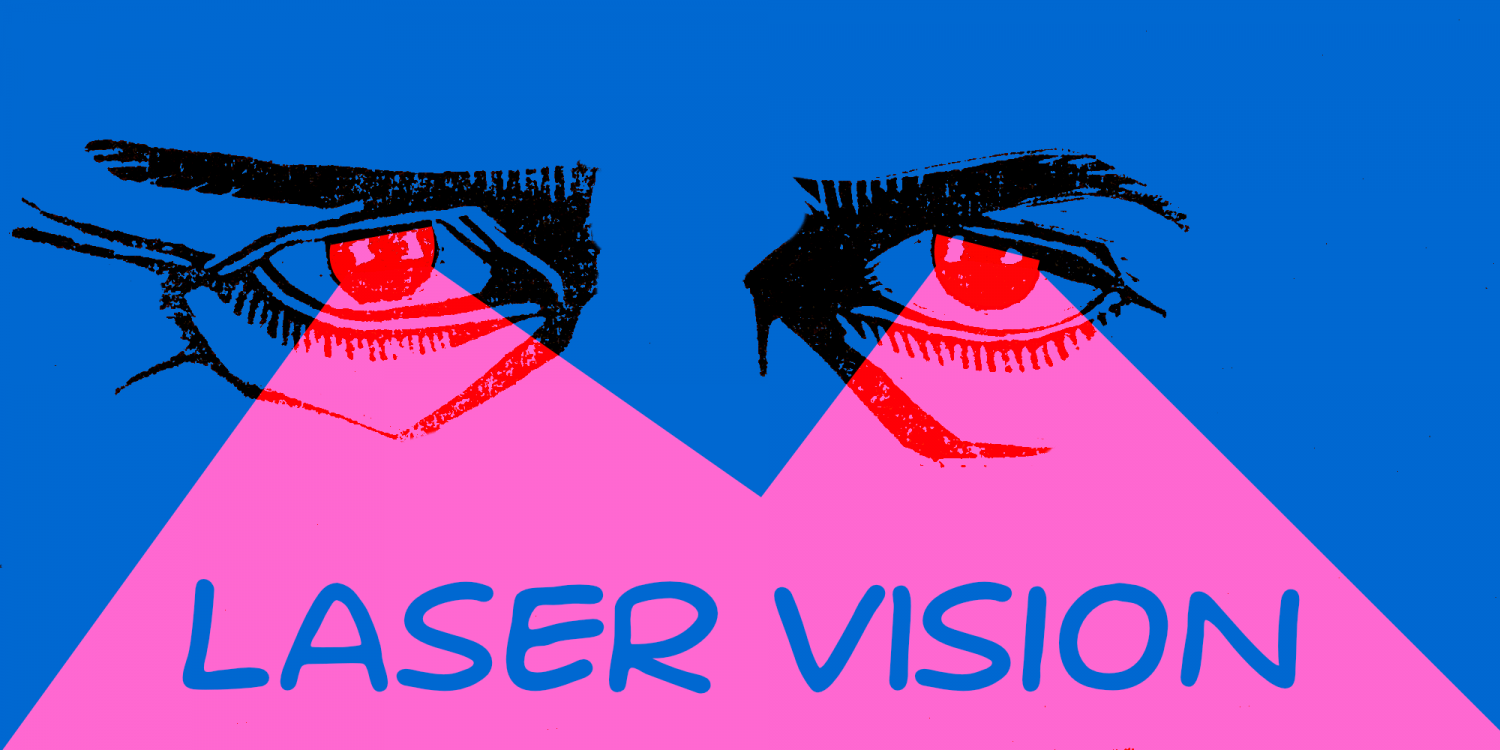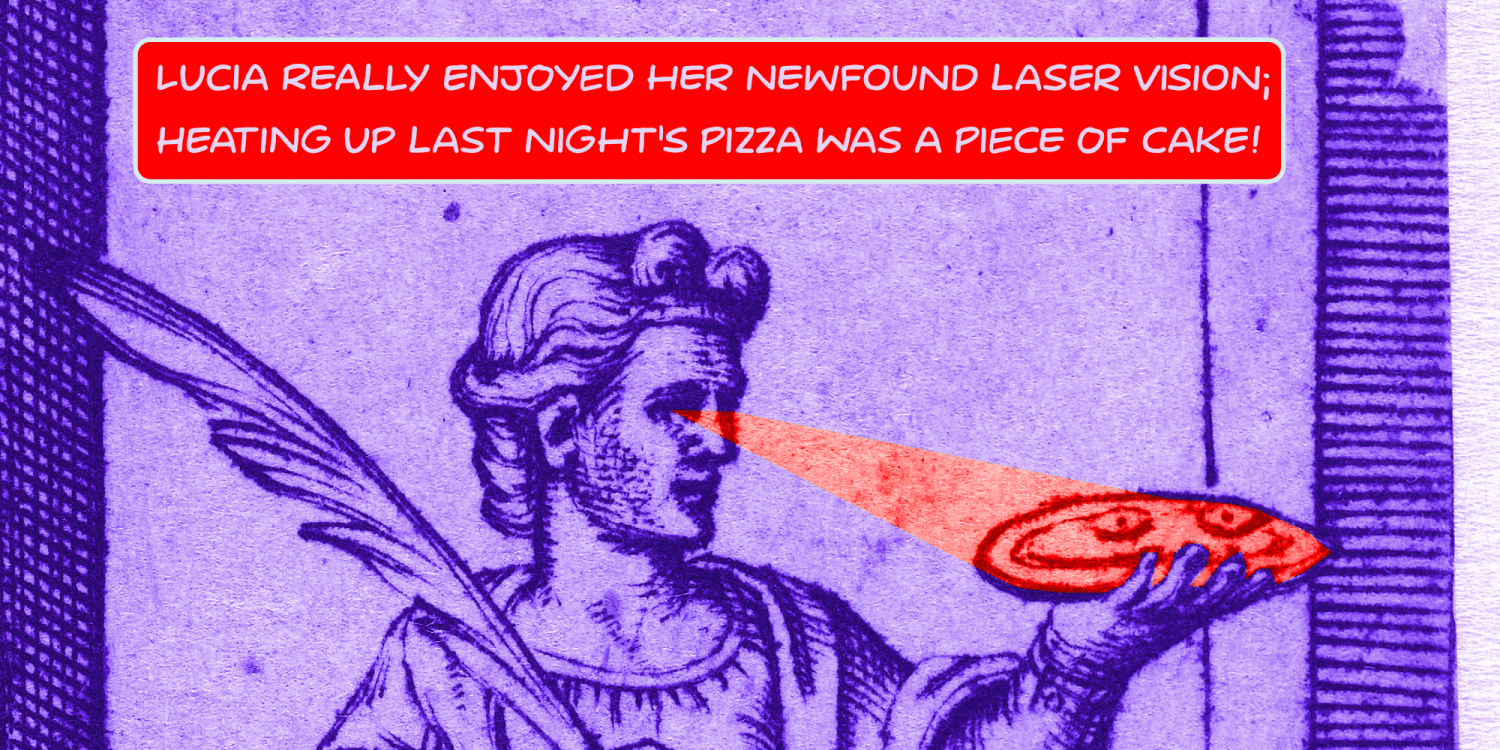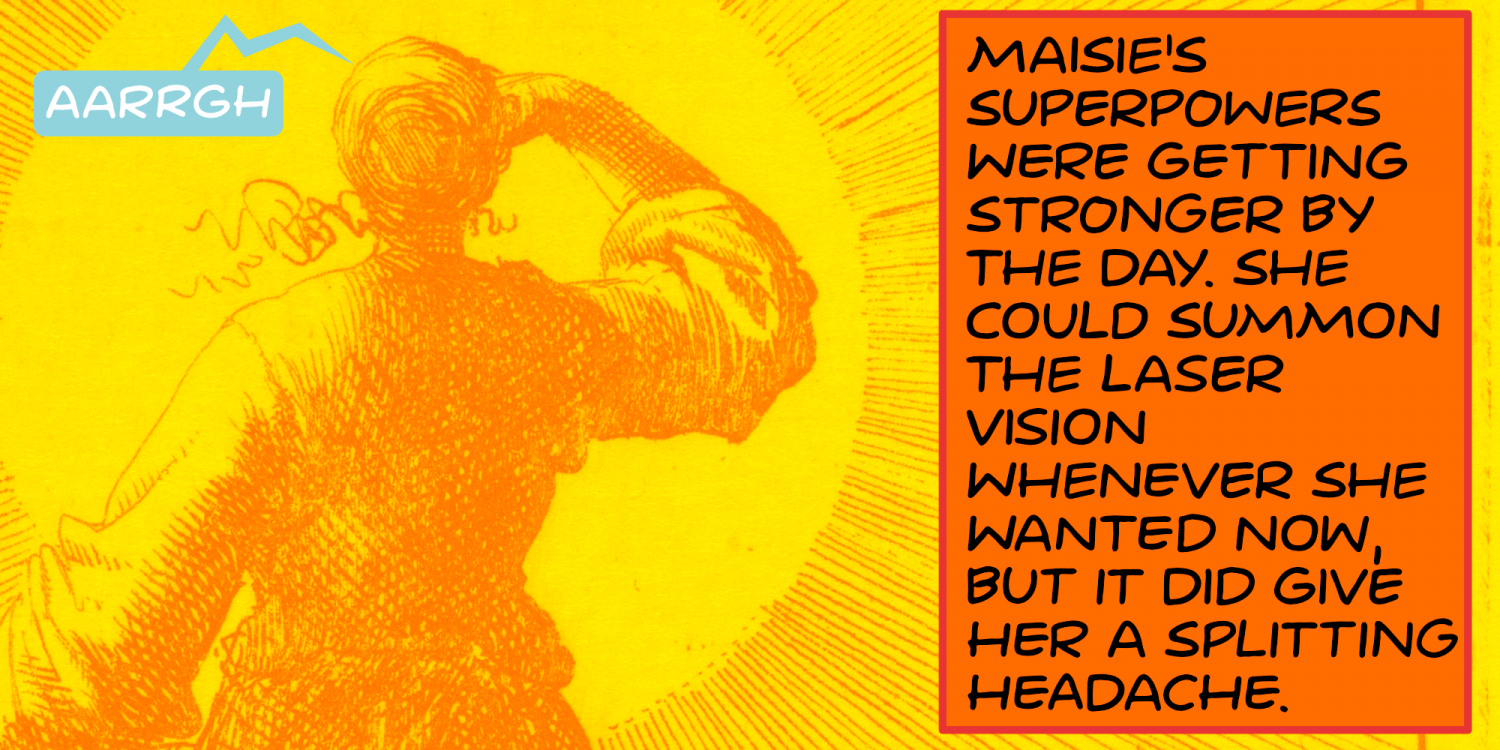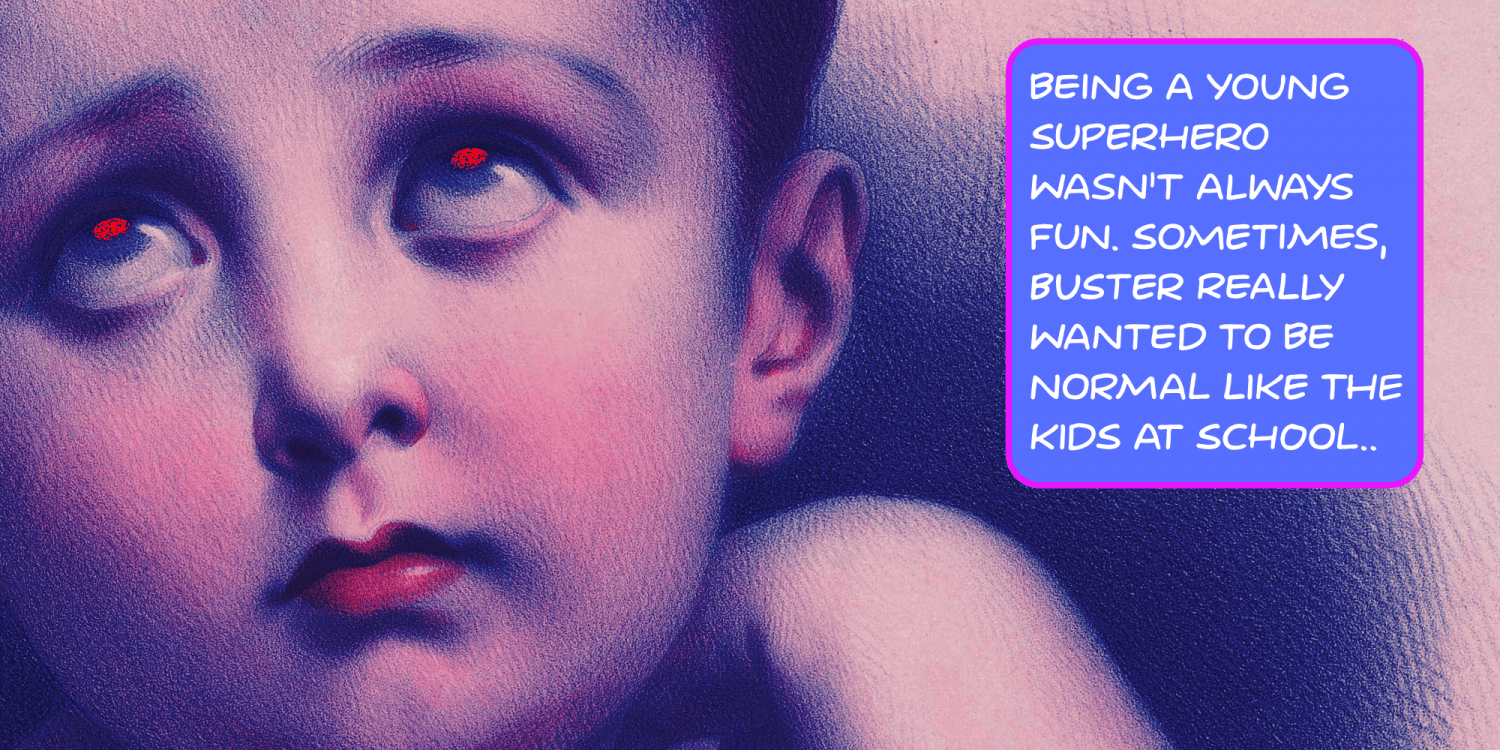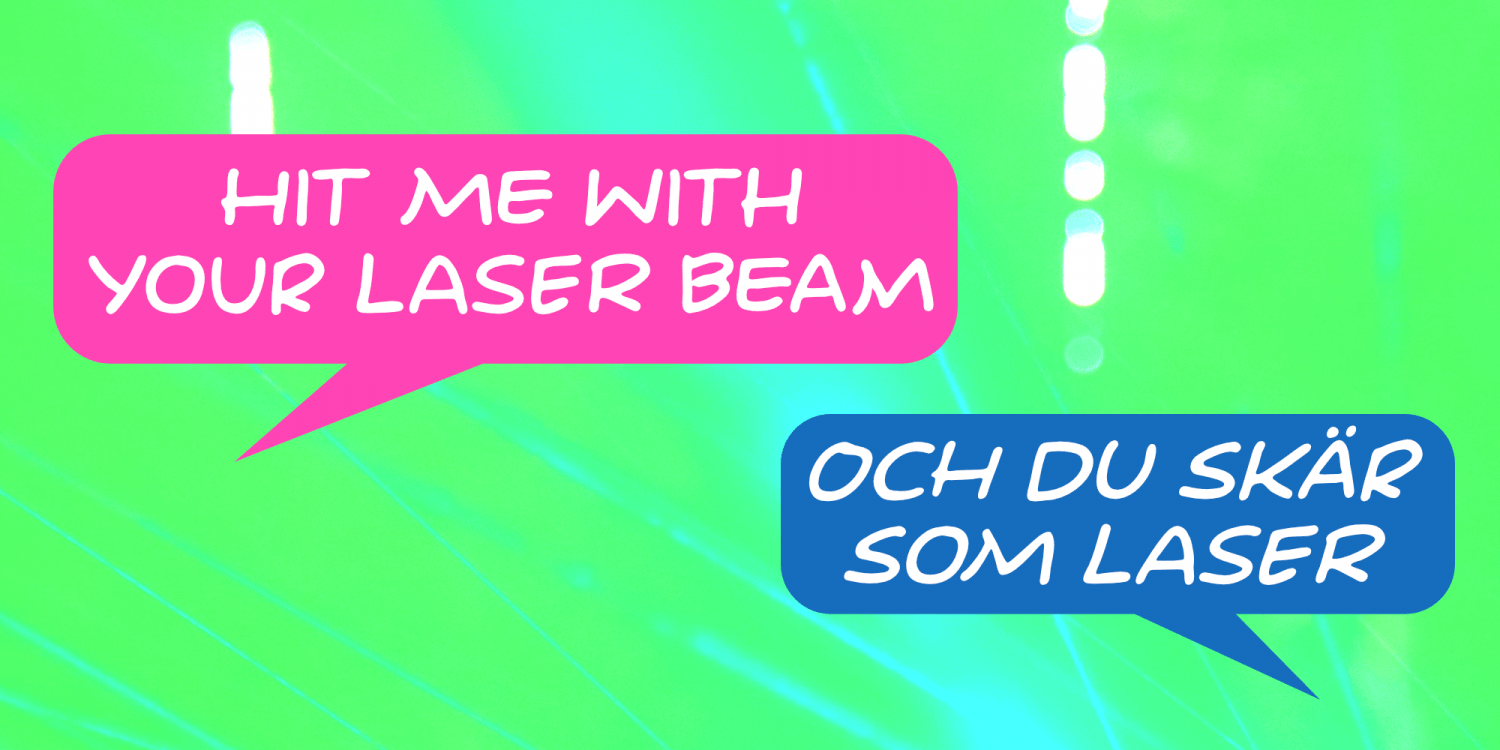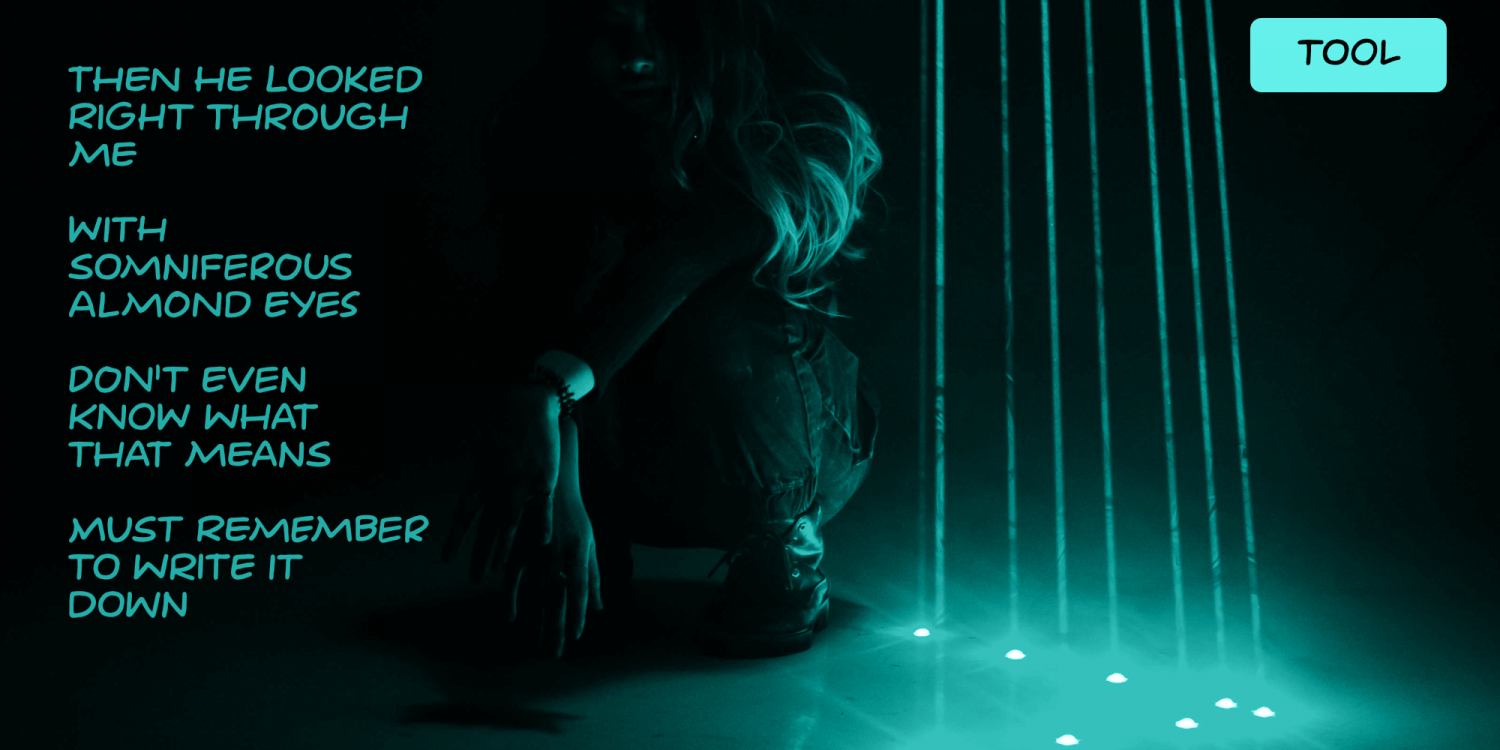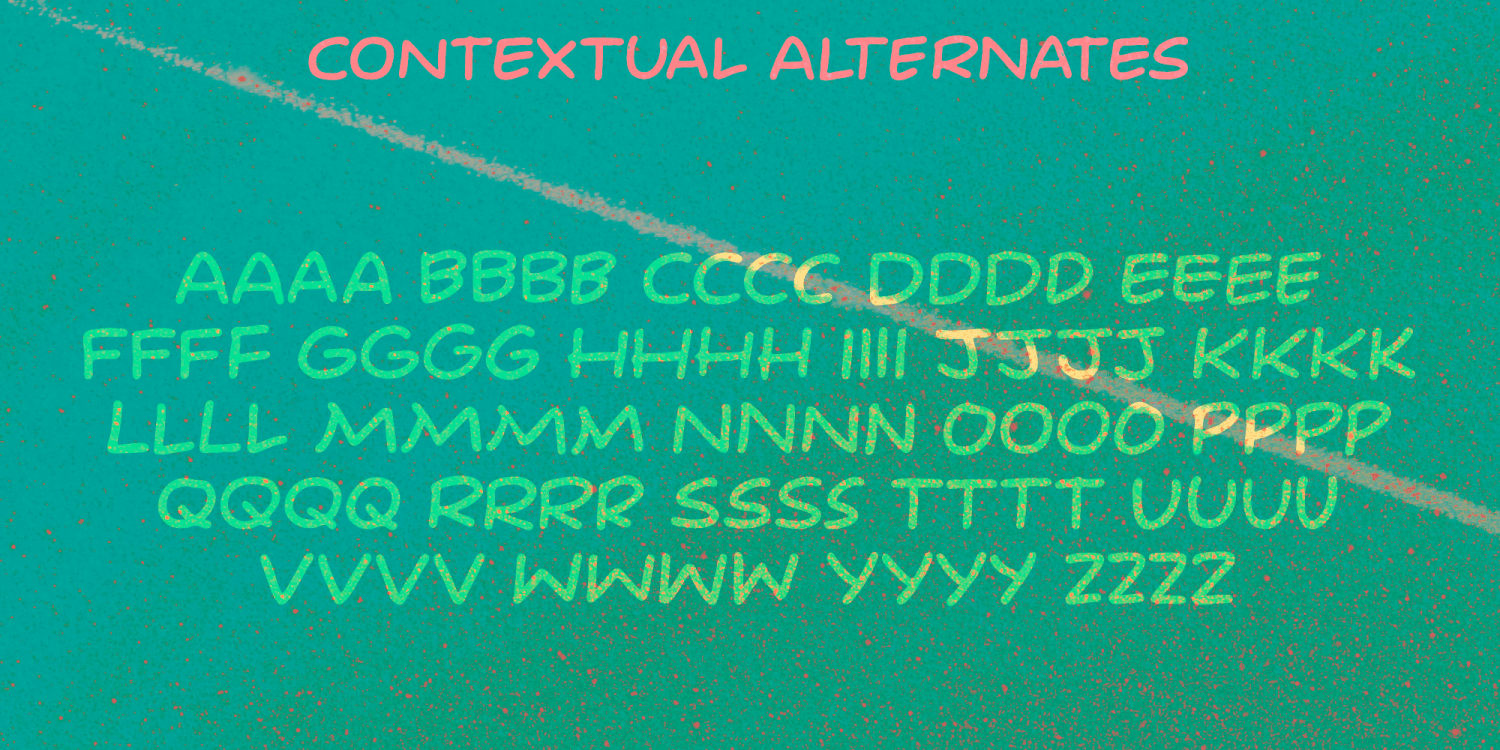
Laser Vision
Laser Eyes is a handmade comic book font. It is a little rounded, a little fat and very useful. You don't really have to put it to work in an actual comic book; it will feel at home just about anywhere.
Laser Vision comes with two sets of alternate glyphs that cycle as you type, plus extensive language support, including Cyrillic and Vietnamese.